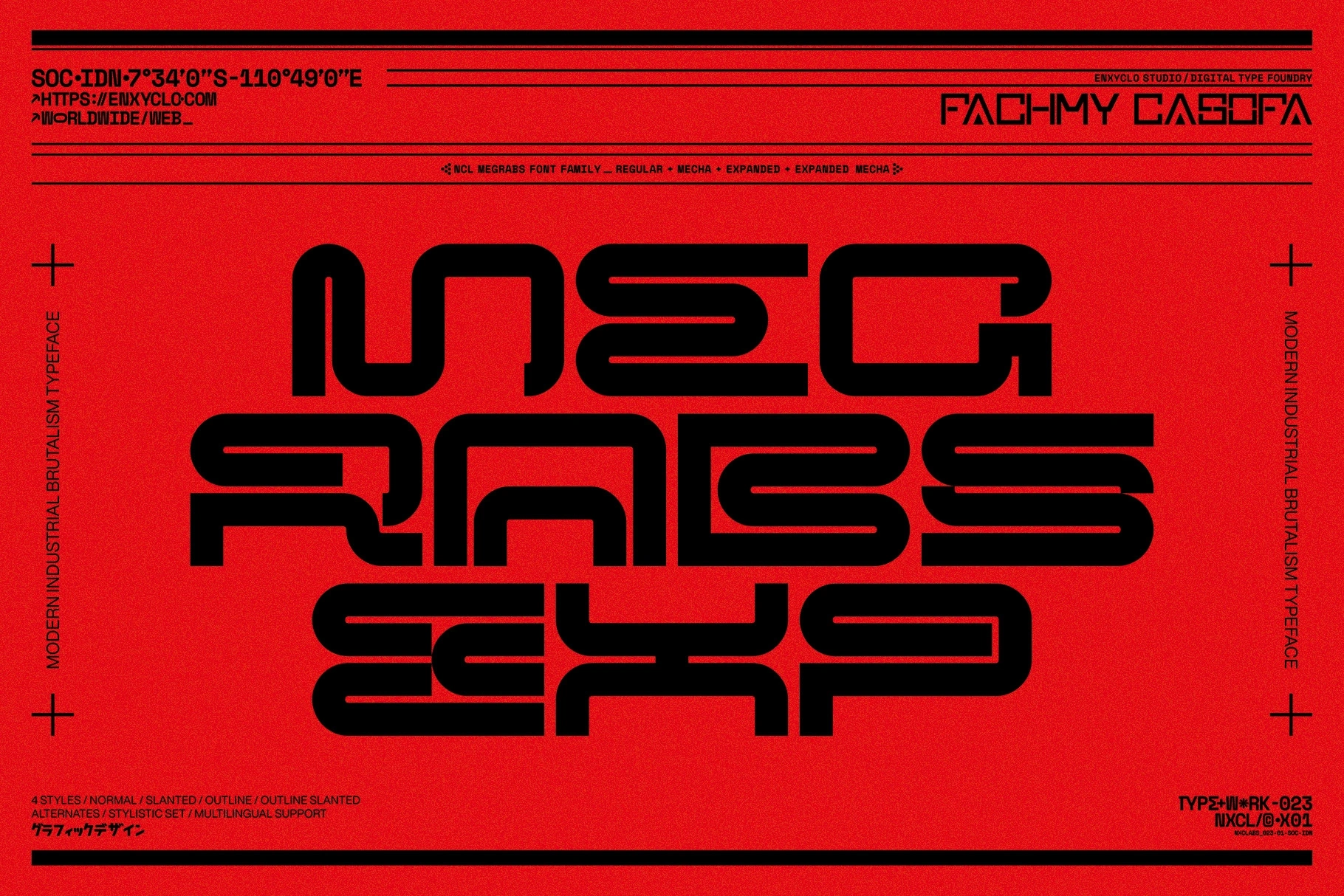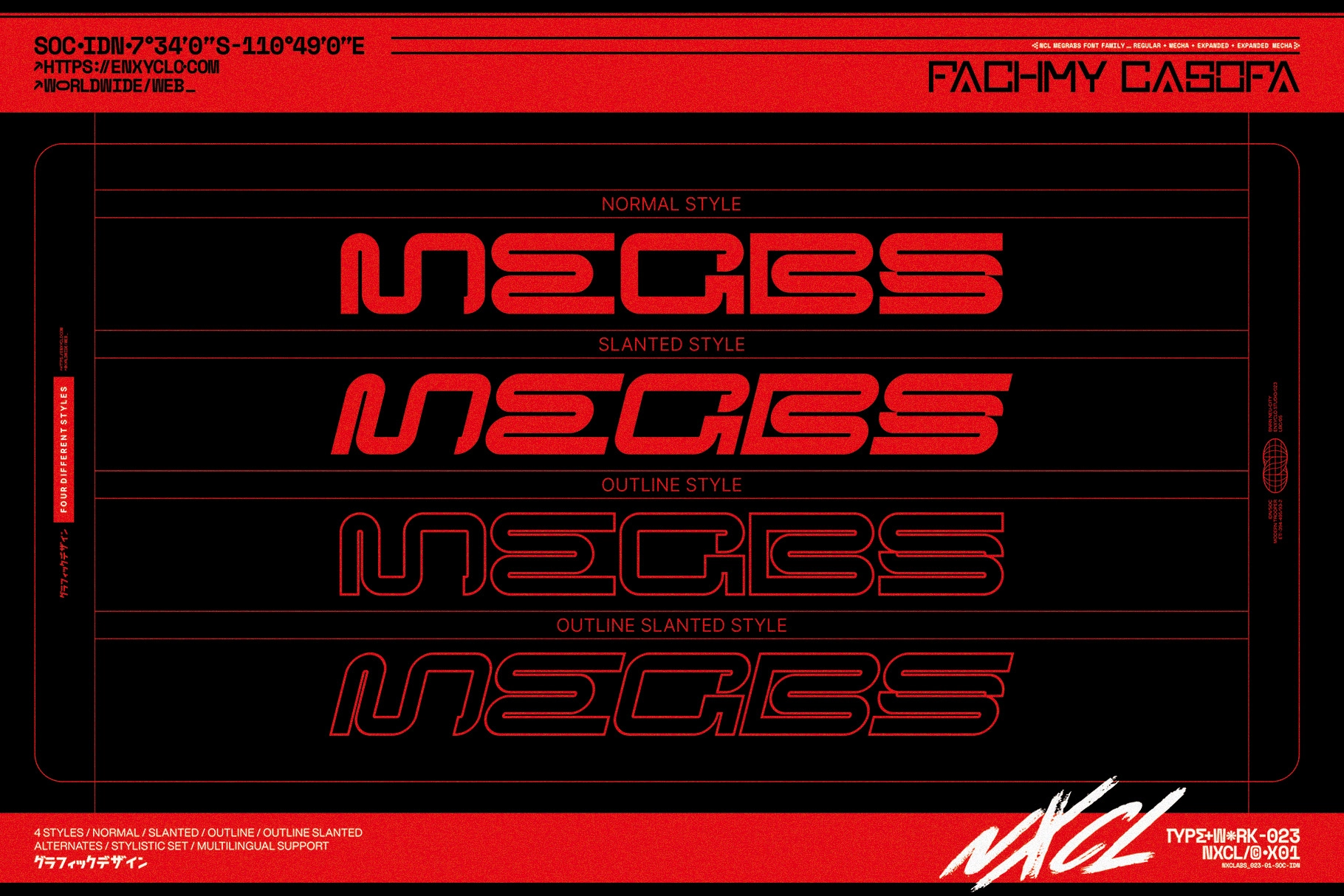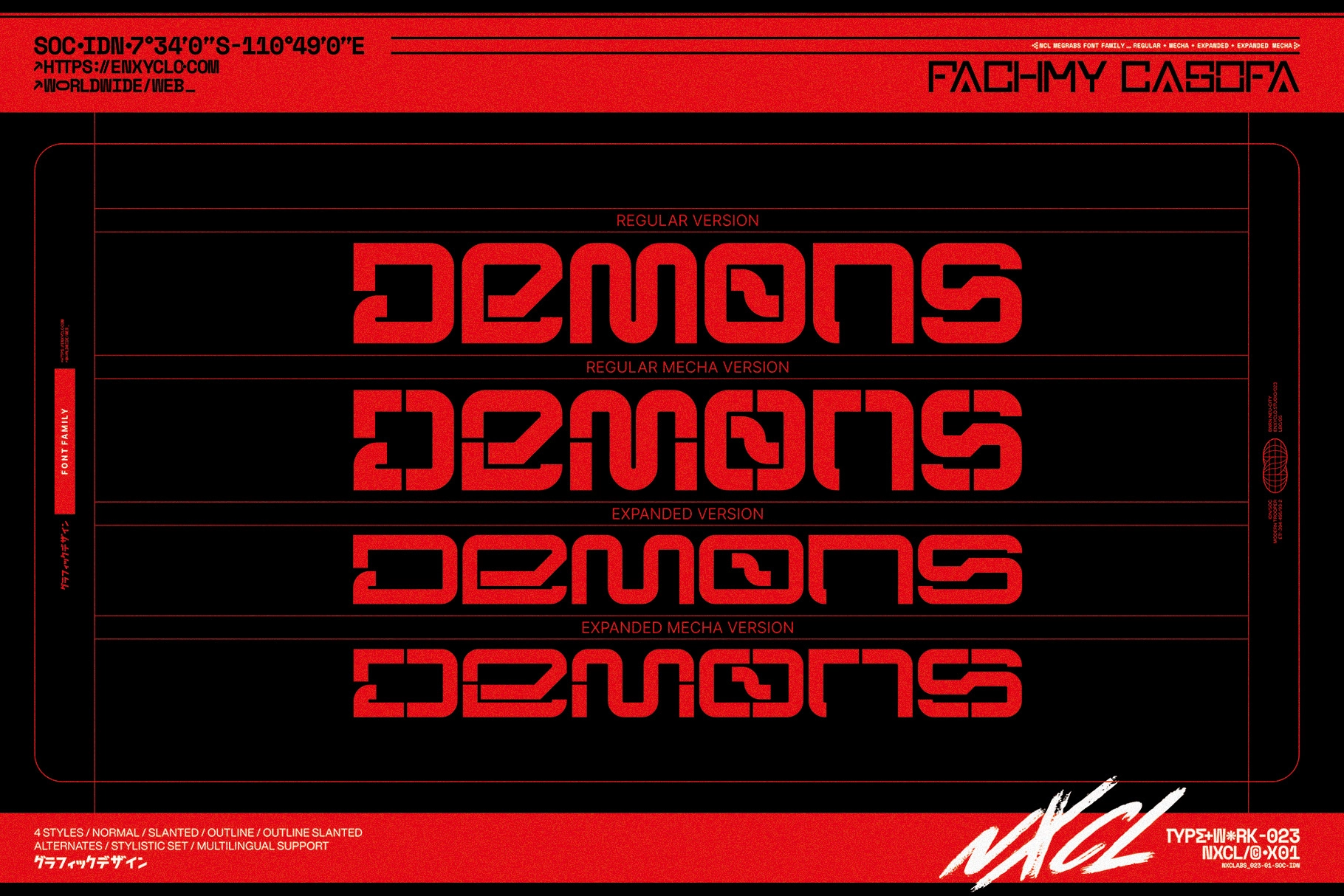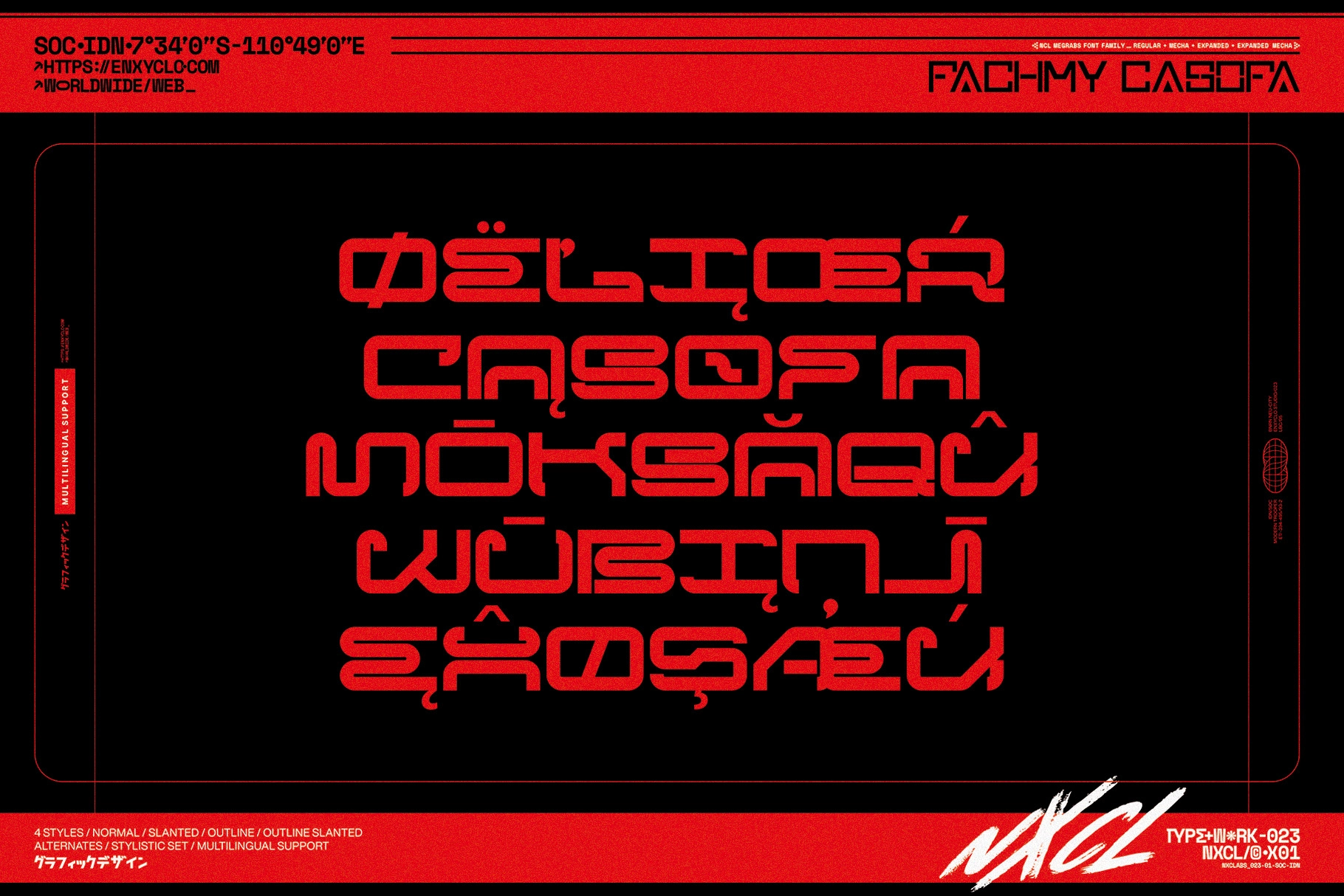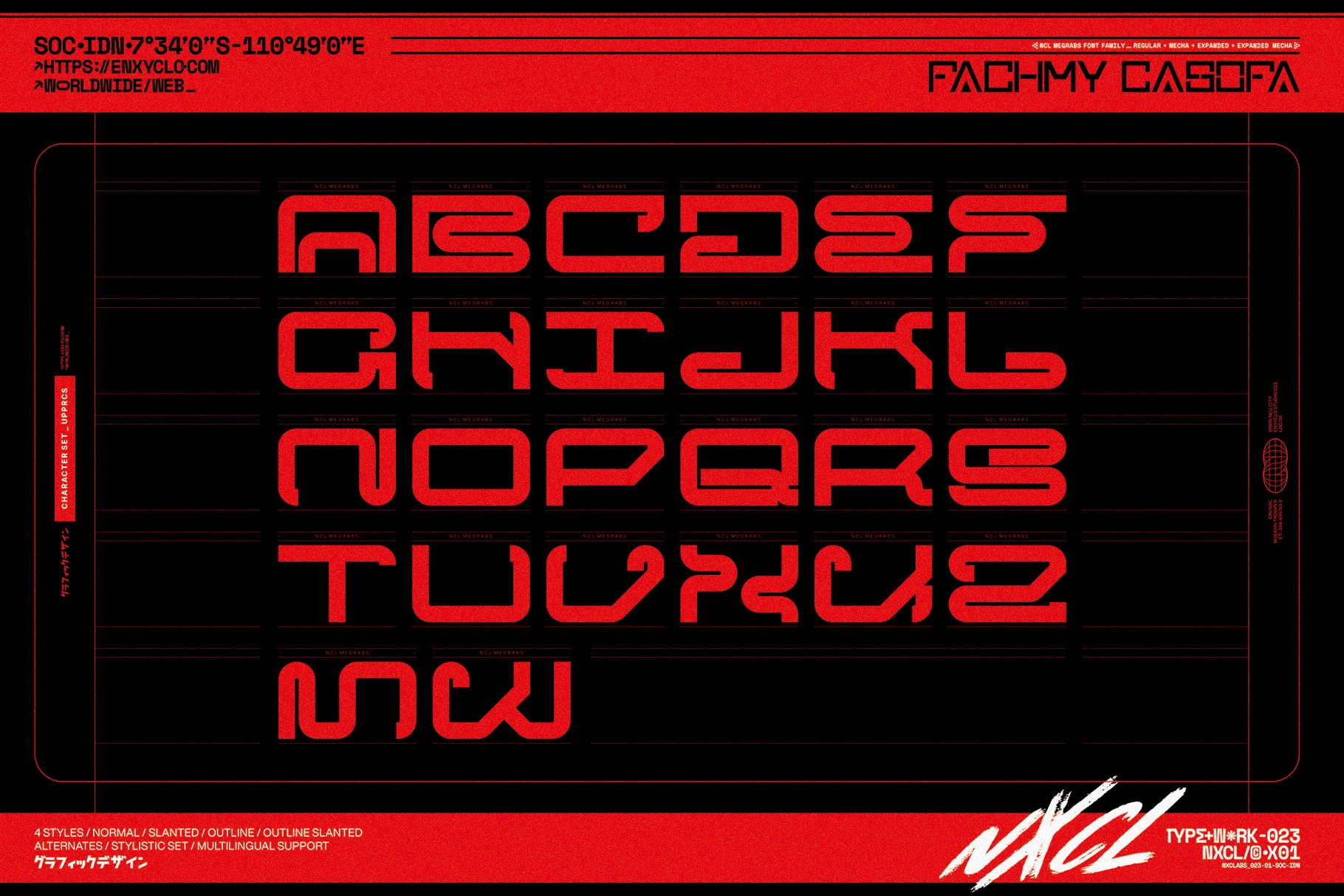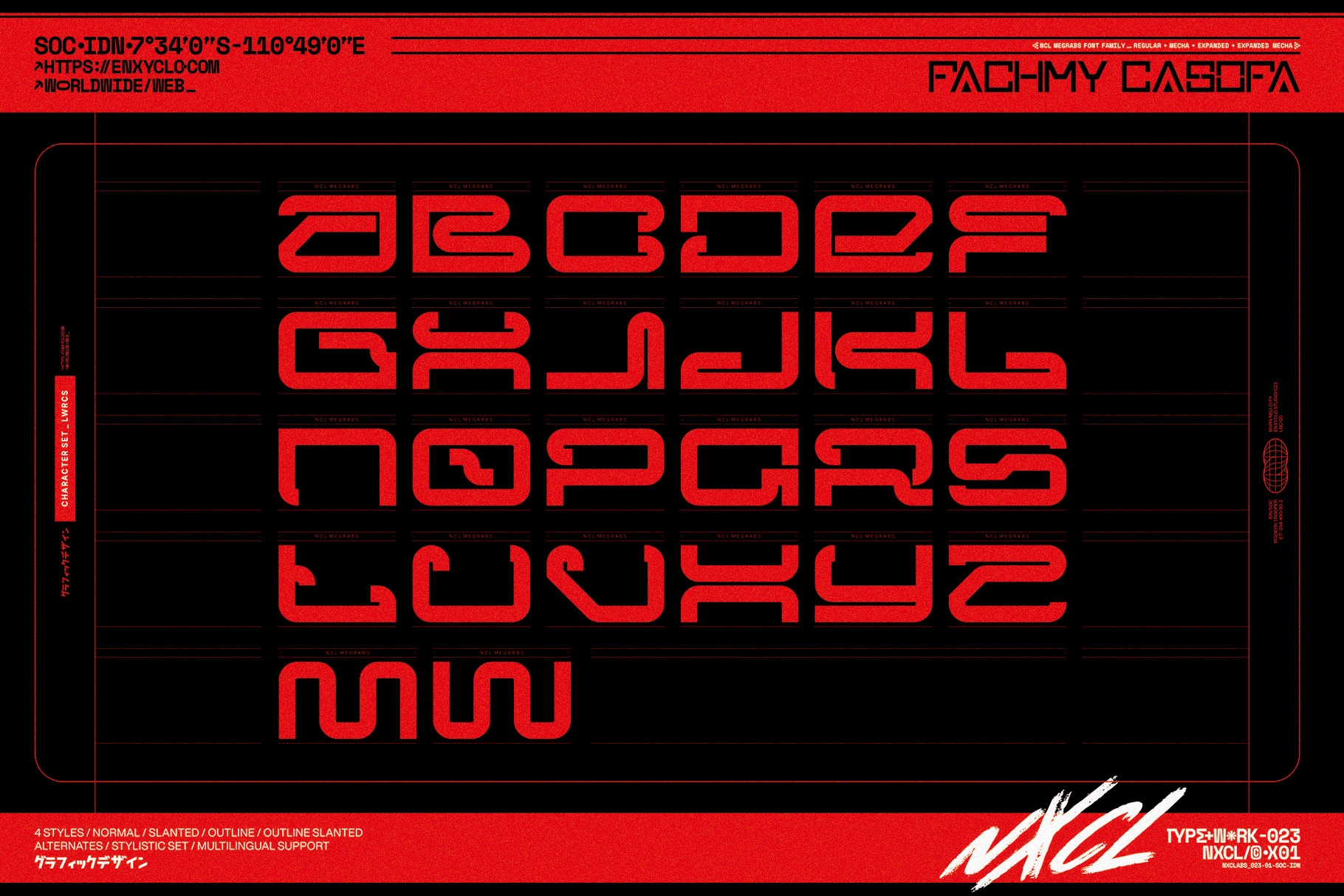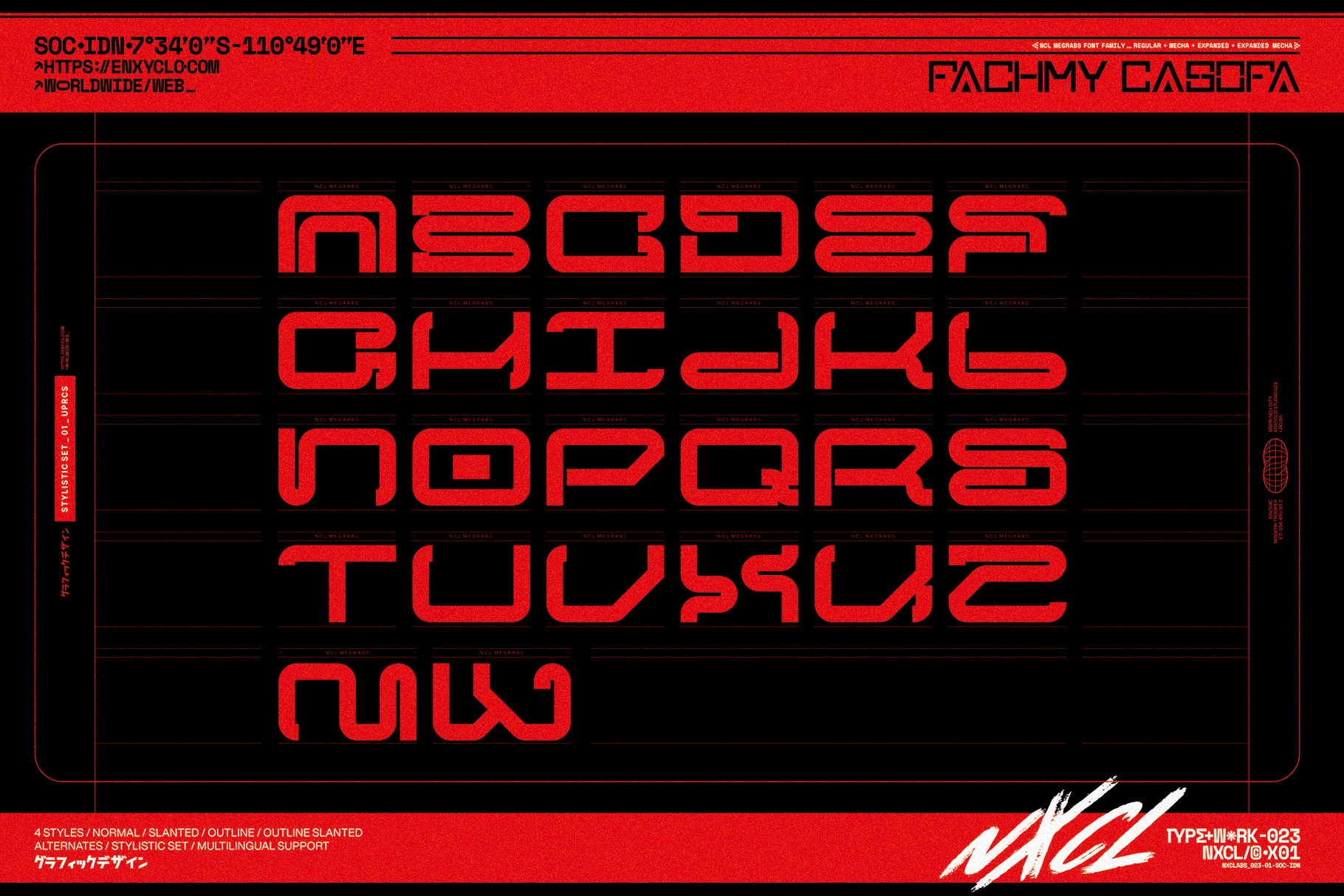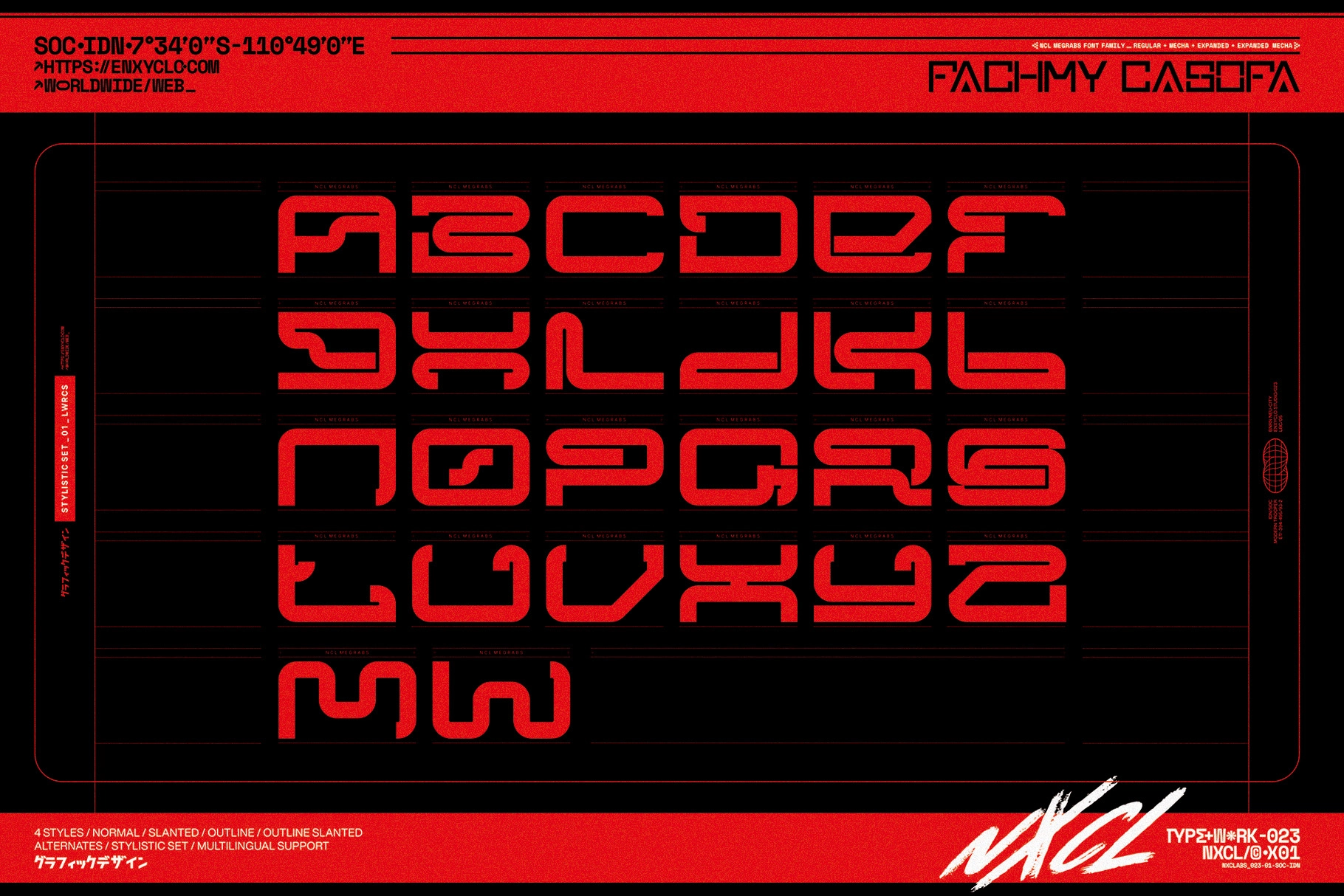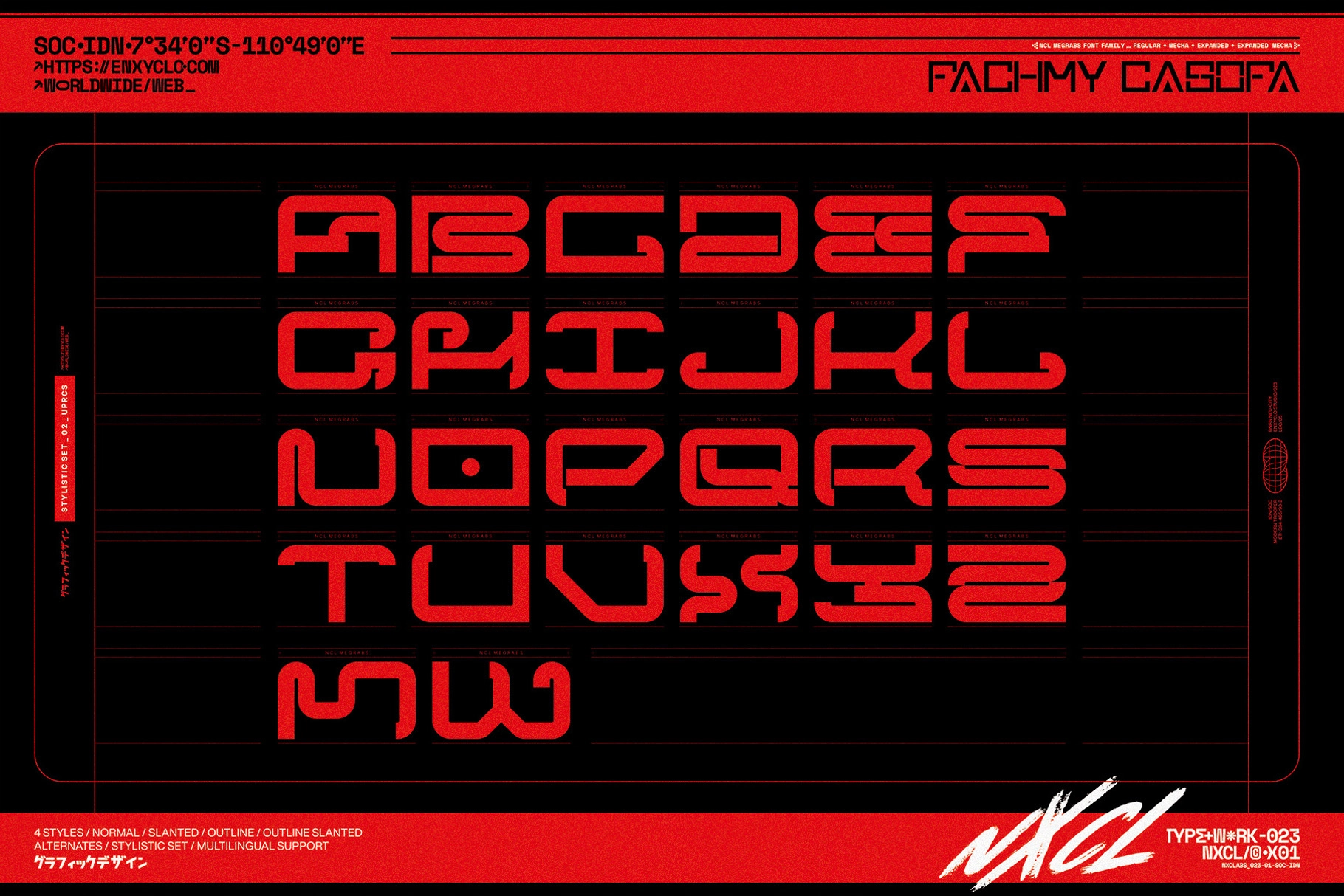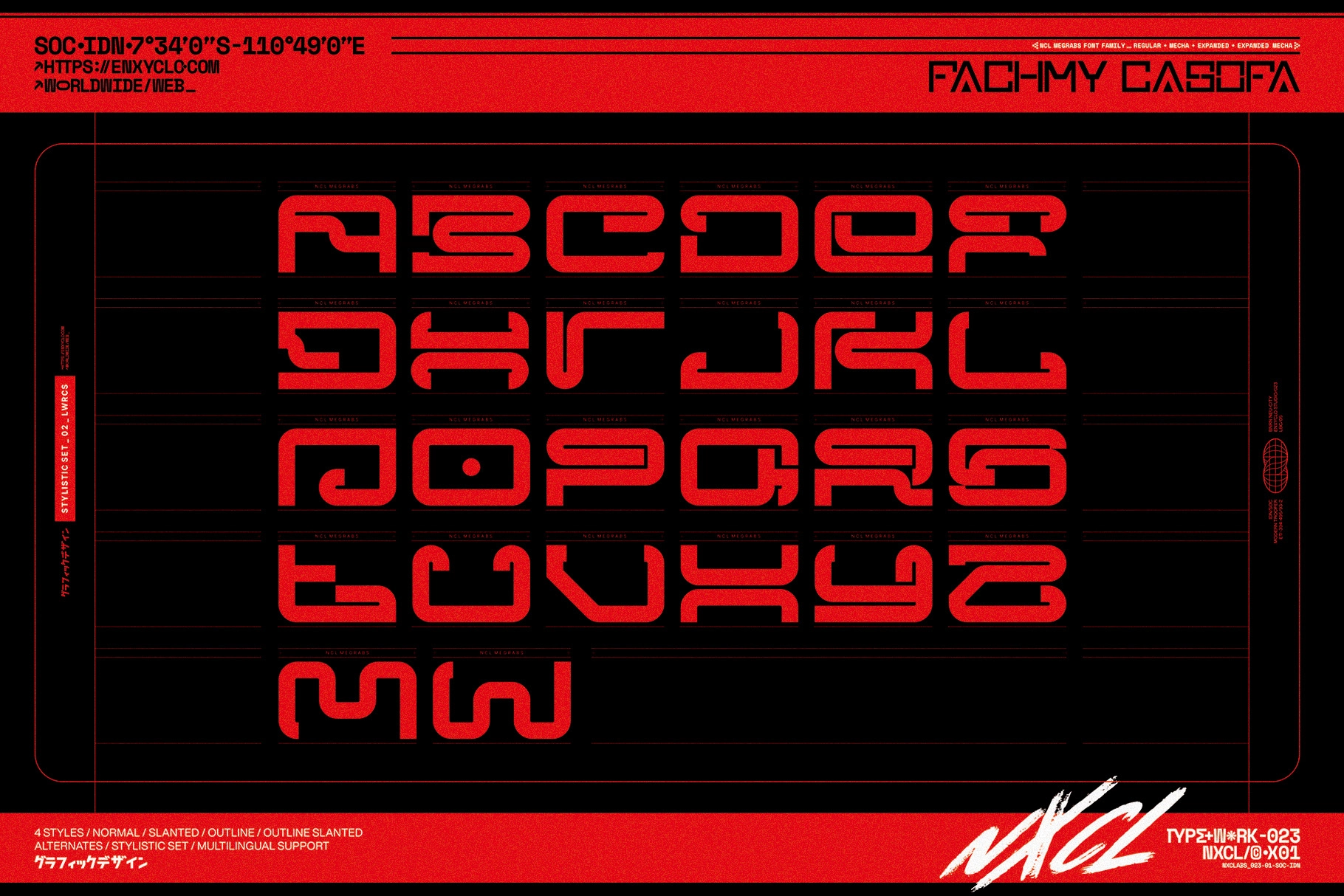
Megrabs - Futuristic Mecha Font Family
Megrabs - Futuristic Mecha Font Family is a powerful industrial type system inspired by cyberpunk, brutalism, and mechanical design language. Its bold geometric shapes, modular construction, and high-tech aesthetic create a striking visual identity that feels straight out of a futuristic interface or sci-fi environment.
Designed for versatility and impact, this extensive font family is perfect for gaming visuals, tech branding, posters, UI design, esports graphics, futuristic logos, and experimental layouts. With multiple widths, styles, and mecha-inspired variations, Megrabs gives you full creative control to build dynamic, cutting-edge typography.
• Full font family: Regular, Mecha, Expanded, Expanded Mecha (each with Normal, Slanted, Outline, Outline Slanted)
• Uppercase & lowercase characters
• Stylistic Set 1–3